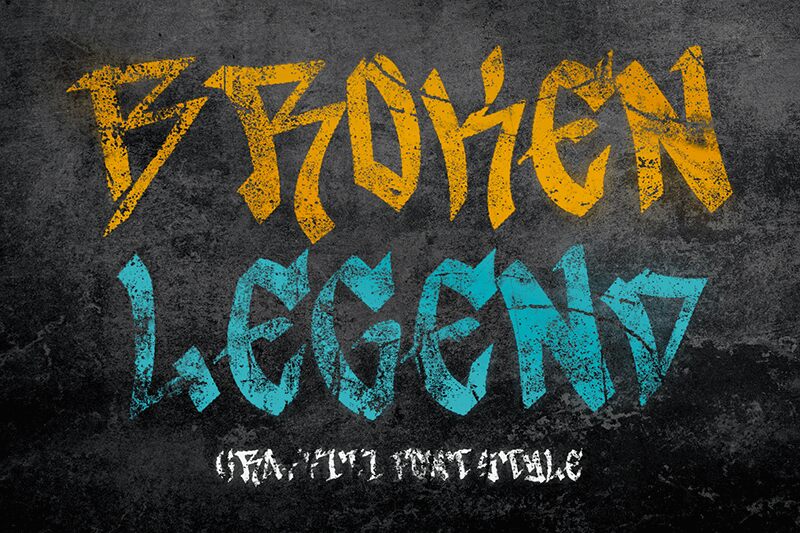
Broken Legend font by Yoga Letter is striking with a graffiti-inspired presence. It combines edgy and ornamental characteristics with hints of Gothic influences, creating a sharp, dramatic style that is both modern and medieval-inspired. A standout element is its distressed text texture that imparts urban motifs in its appearance. With such intensity, this free display font is intended for diverse expression designs.
Use it in tattoos, emblems, mascots, branding designs, labels and packaging projects of all kinds. In the digital world benefit from it in film posters, video games interfaces and mobile apps UI design. Books’ or albums’ covers with shocking words would also look pop if designed using Broken Legend’s typography style.
Presentazione e campione visivo del carattere Broken Legend Demo